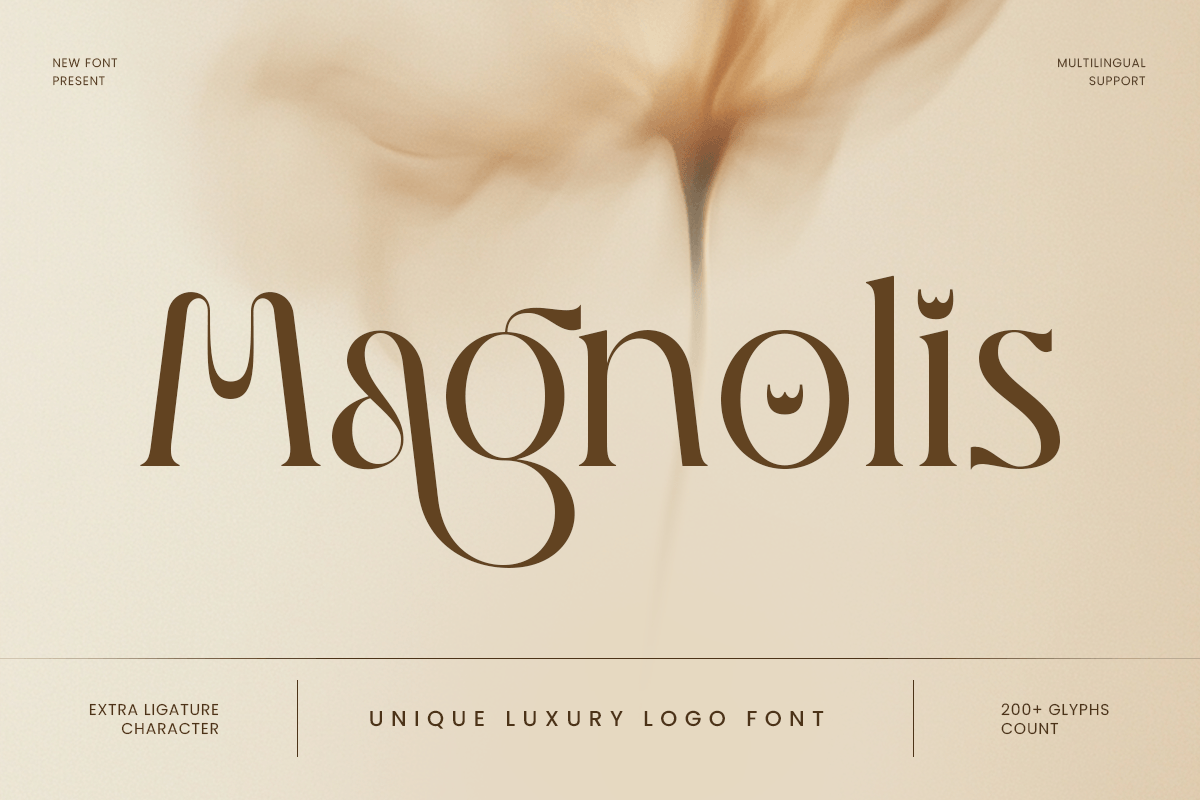
Magnolis
-Luxury Serif FontMagnolis - Luxury Serif Font
Magnolis is a luxury serif font designed to bring refined elegance, premium structure, and timeless beauty to your typography. With graceful serif details, balanced proportions, and a polished visual rhythm, this typeface creates a sophisticated tone that feels stylish, high-end, and instantly brand-ready.
Built for luxury branding and editorial design, Magnolis works beautifully across logos, wordmarks, magazine covers, website headers, packaging, labels, invitations, presentations, signage, and upscale marketing visuals. Its elegant serif structure keeps every composition readable while adding a premium presence across both digital and print layouts.
Whether you’re building a fashion identity, developing a beauty brand, designing luxury packaging, or crafting refined editorial visuals, Magnolis provides a strong serif foundation that makes your typography feel polished, memorable, and unmistakably elegant.
Inspiration Behind Magnolis
Magnolis is inspired by classic luxury typography and modern editorial elegance—where refined serif forms, graceful spacing, and premium detail create timeless visual identity. The design focuses on sophisticated rhythm and elegant clarity to support high-end branding, editorial headlines, and stylish visual communication.
Magnolis Font Features:
Luxury serif letterforms with refined premium character
Perfect for logos, branding systems, and editorial headline typography
Clean elegant structure for sophisticated layouts and strong readability
Luxury logos, wordmarks, and premium brand identity systems
Fashion, beauty, skincare, fragrance, and boutique branding
Editorial layouts, magazine covers, lookbooks, and headlines
Premium packaging, labels, invitations, and elegant stationery
Social media campaigns, websites, presentations, and marketing assets